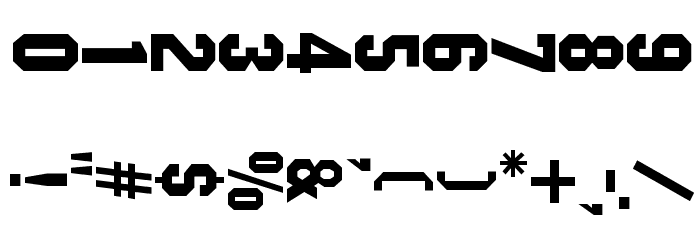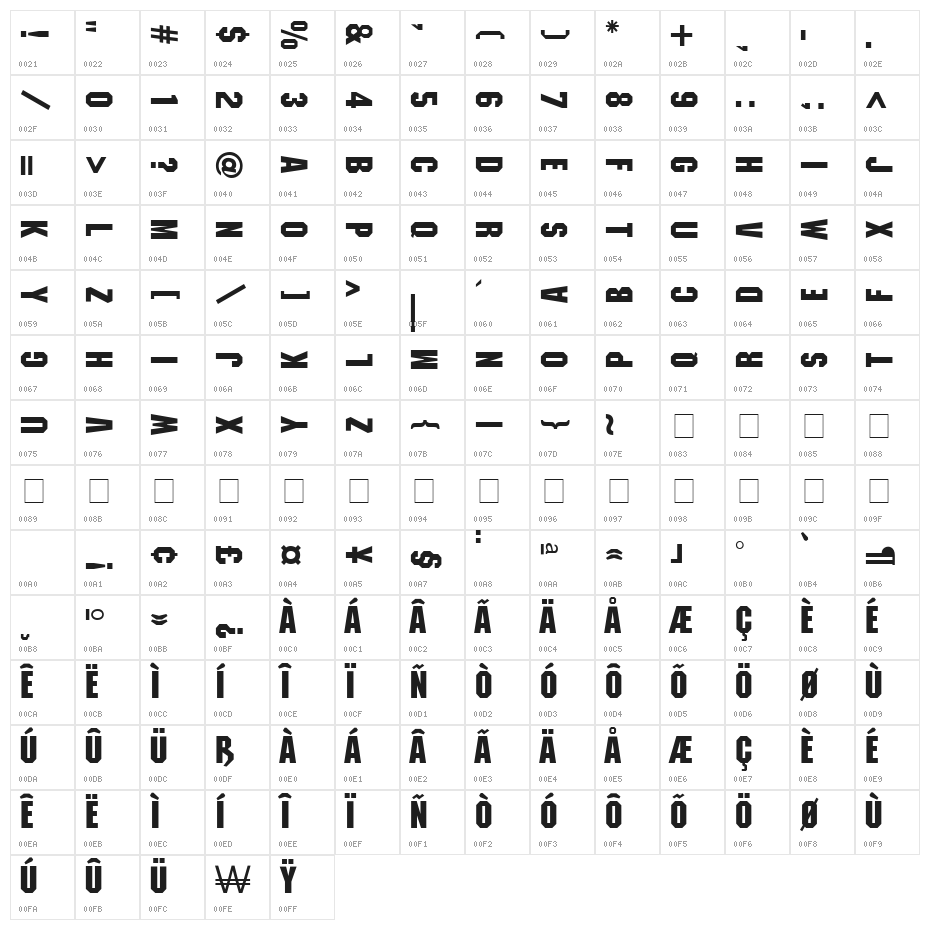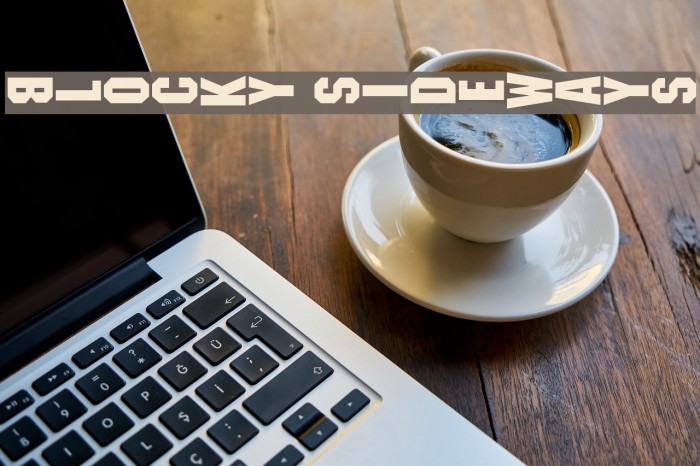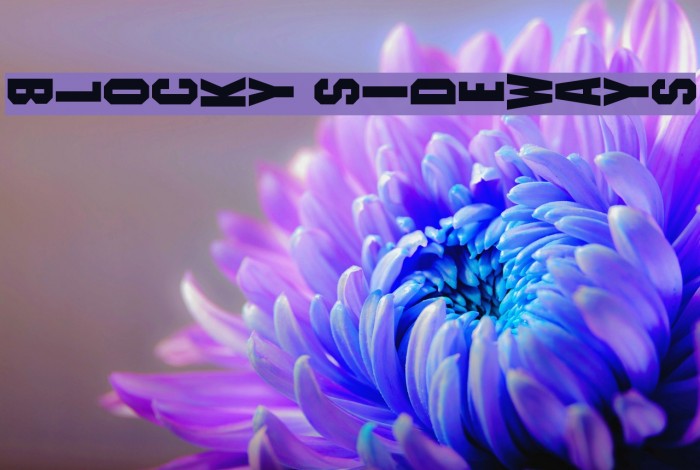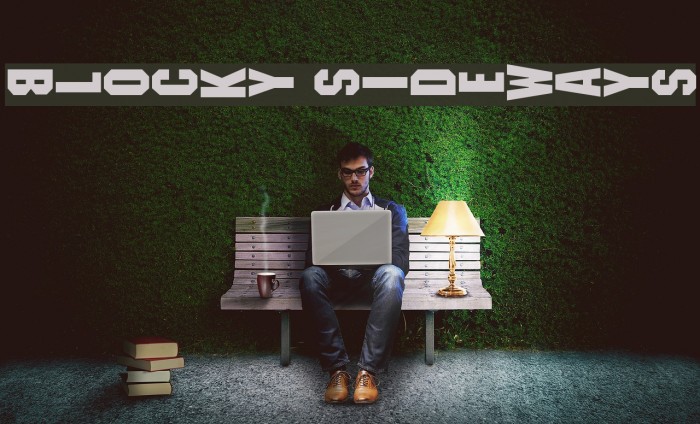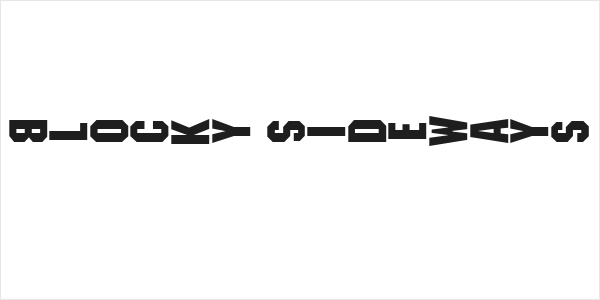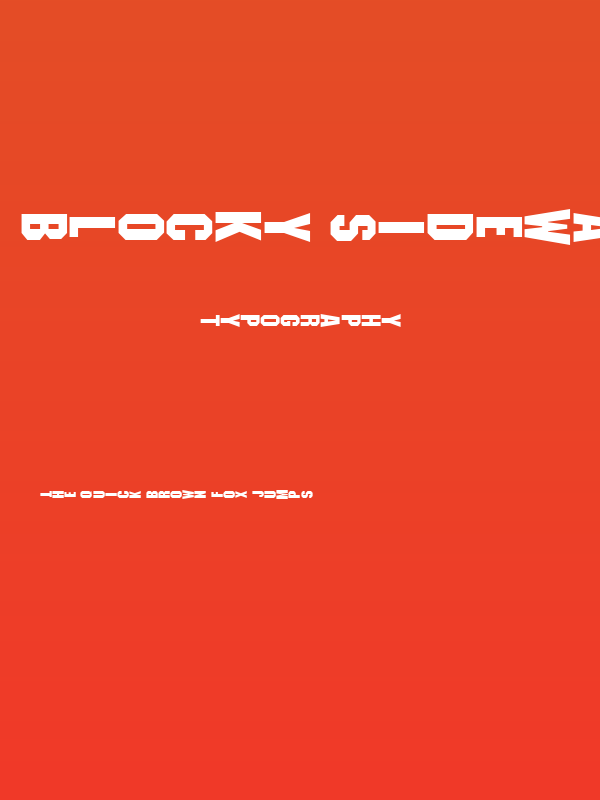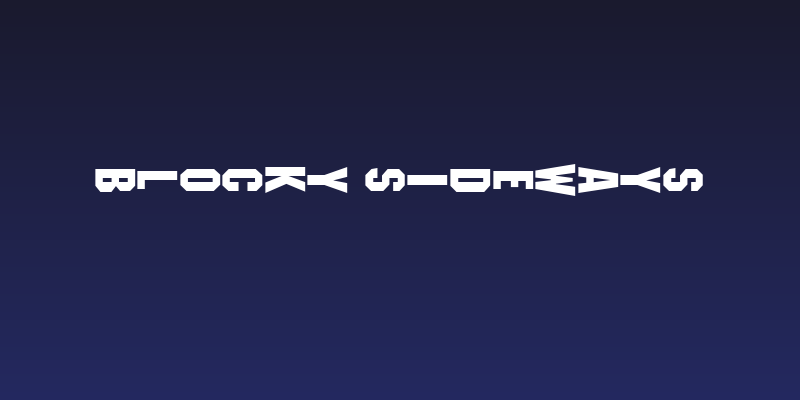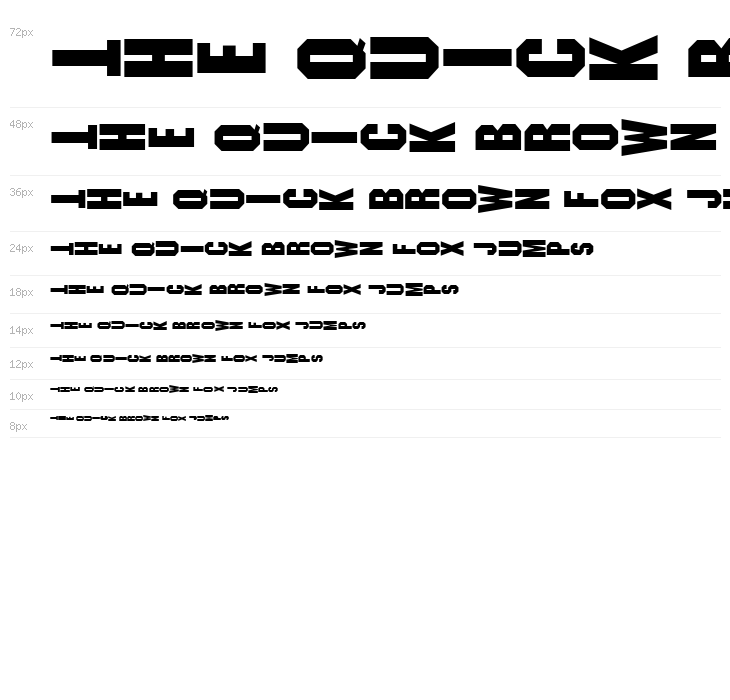
Blocky Sideways Font
Blocky Sideways Description
This font features a bold, geometric design with a distinctly blocky appearance. Each character is crafted with sharp angles and a consistent thickness, giving it a robust and industrial feel. The letters are slightly tilted, adding a dynamic and unconventional twist to the overall look. The uppercase and lowercase letters maintain a uniform style, while the numbers and special characters are designed to match the bold aesthetic. This font's unique sideways orientation makes it stand out, offering a modern and edgy vibe suitable for eye-catching designs.